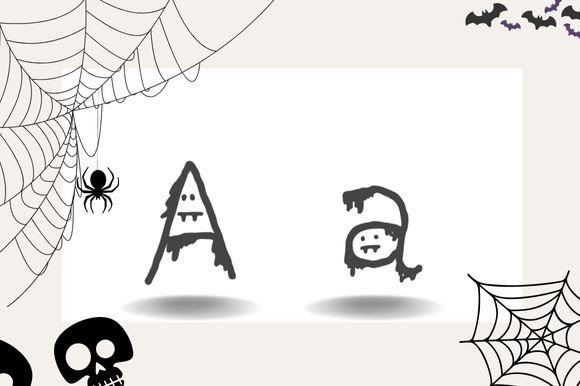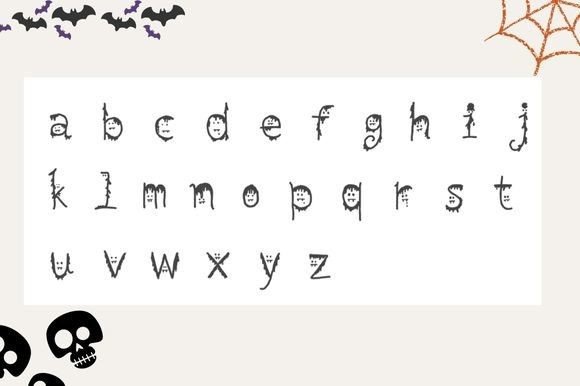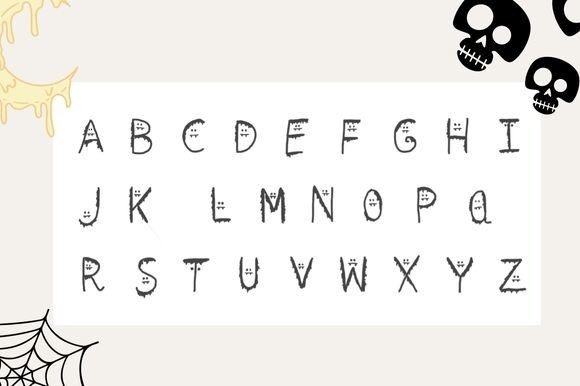
Introduction to Sharp Teeth Font
Sharp Teeth is a cute and Halloween-themed decorative font.
Its lovely characters are perfect for bringing your spooky projects to life .
Key Features of Sharp Teeth Font
Why Choose Sharp Teeth Font?